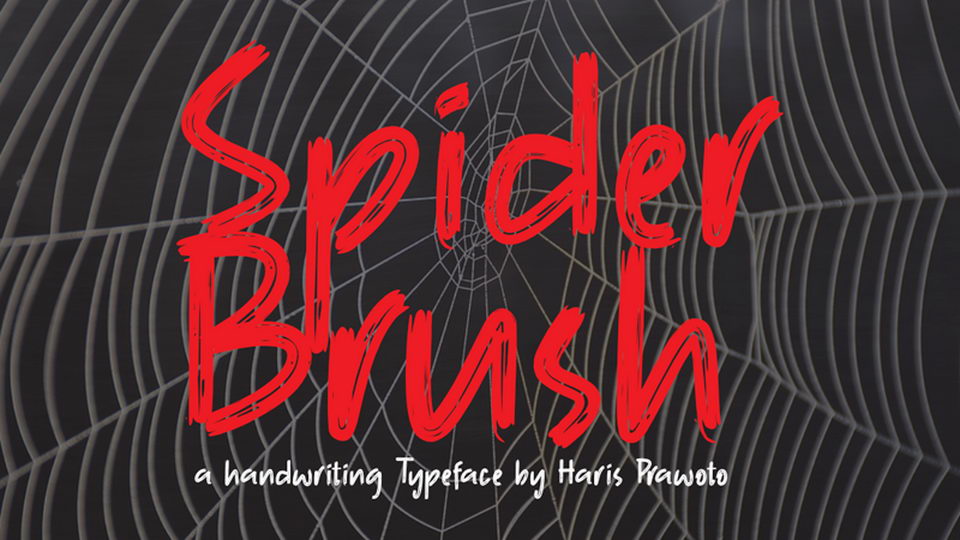
Download Spider Brush font, a hand lettered dry brush typeface with a natural texture. Spider Brush font perfectly fits for posters, headlines, banners, flyers, t-shirts and more.